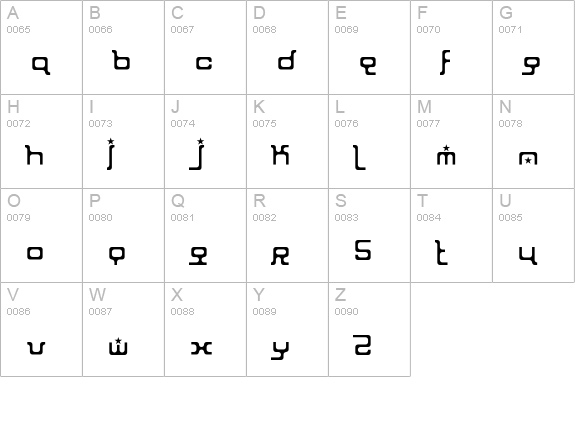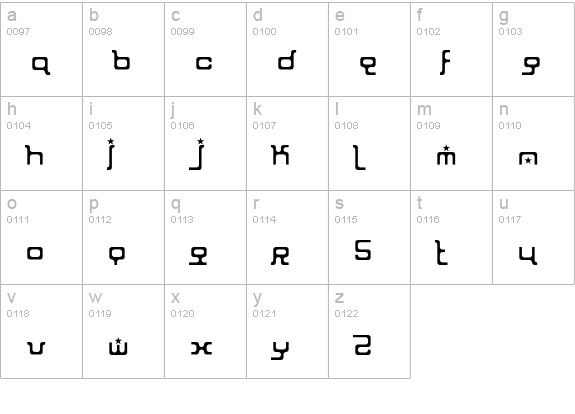
Ioniser Font Details
Ioniser is a striking and modern font that effortlessly captures attention with its clean lines and sophisticated aesthetic. With its bold and sleek design, Ioniser is perfect for a wide range of creative projects, from branding and advertising to website design and editorial layouts. This font boasts a unique combination of sharp edges and curved forms, creating a harmonious balance between elegance and strength. The letters are expertly crafted, ensuring readability while adding a touch of uniqueness to any project. One of the most appealing aspects of Ioniser is that it is freely available to download at FontsMarket.com. This means that you can easily access this remarkable font without any cost, making it an excellent choice for budget-conscious designers and enthusiasts alike. Whether you're working on a personal project or collaborating with a team, Ioniser will elevate your designs to new heights. Its versatility allows it to seamlessly integrate into various design styles, making it an incredibly valuable asset for any creative endeavor. In addition to its captivating design, Ioniser is also highly functional, ensuring legibility across different sizes and mediums. From bold headlines to elegant body text, this font adapts effortlessly to any typographic need, providing a polished and professional finish. With Ioniser, you have the power to make a lasting impression. Its contemporary and stylish appearance will help your designs stand out, leaving a lasting impact on your audience. Download Ioniser for free at FontsMarket.com and unlock a world of possibilities for your next design project.